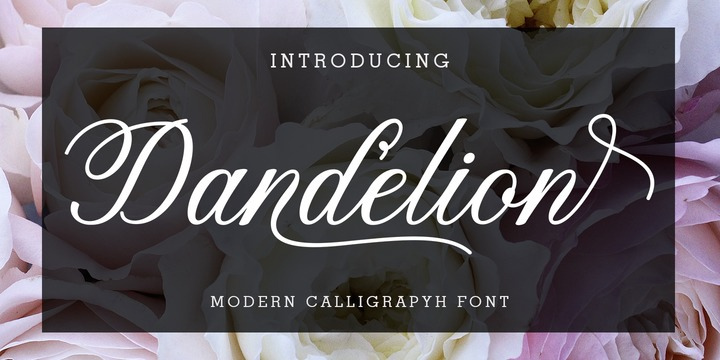
Dandelion Script Font
Dandelion Script Font is perfect for whimsical children's books, dreamy wedding invitations, delicate botanical designs, nature-inspired greeting cards, organic beauty product packaging, mindful wellness materials, gentle nursery decorations, wishful thinking campaigns, seasonal spring promotions, and authentic natural lifestyle communications.
What makes Dandelion Script Font so exciting is its enchanting embodiment of natural grace and wishful beauty that captures the delicate wonder of wildflowers and the magical power of dreams taking flight through gently flowing typography. This naturally inspired typeface features flowing letterforms with botanical proportions and wind-carried character variations that immediately convey lightness, hope, and the transformative power of gentle wishes. The font's organic construction and dream-like aesthetic create an instant sense of natural beauty and hopeful optimism, making it ideal for projects that need to communicate gentle wishes, natural beauty, and the life-inspiring power of hope and dreams to audiences seeking authentic natural experiences and meaningful connections to simple pleasures.
The Dandelion Script Font family typically includes multiple gentle weights and flowing styles, often featuring light through medium variations along with gracefully dancing italic versions and nature-optimized alternatives. Botanical script font collections frequently offer additional natural elements such as flower symbols, wind ornaments, and wish-inspired decorations that enhance the authentic natural aesthetic and provide designers with comprehensive tools for creating genuinely organic and beautifully hopeful communications.
The whimsical nature of Dandelion Script Font makes it particularly effective for targeting demographics that value natural beauty and gentle optimism in their lifestyle and creative choices. Nature marketers and children's brand designers will find this font especially valuable for materials that must establish immediate natural credibility and connect with audiences seeking authentic gentle experiences and meaningful hopeful engagement.
What sets Dandelion Script Font apart is its ability to convey natural delicacy while maintaining the warmth necessary for effective emotional communication and gentle brand expression. This balanced characteristic makes it suitable for both delicate nature applications and heartwarming family contexts where projecting natural beauty and maintaining emotional accessibility must work together harmoniously.
Professional designers recognize that Dandelion Script Font brings invaluable natural credibility to projects across industries including children's products, natural wellness, organic beauty, and mindful lifestyle branding. Its gentle character and wishful appeal make it essential for organizations whose mission centers on celebrating natural beauty, promoting gentle living, and creating meaningful connections between simple pleasures and authentic happiness.
The thoughtfully crafted natural authenticity of Dandelion Script Font ensures consistent gentle messaging across all nature-focused communication applications while honoring the fundamental importance of hope and natural beauty in organic typography.